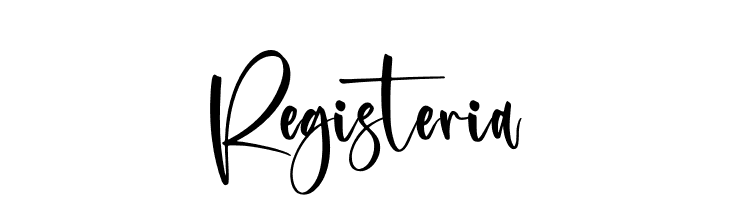
An elegant, cursive script font with flowing curves and delicate flourishes.
An elegant, high-contrast cursive font with dynamic slant and intricate swashes.
A graceful, handwritten font with a flowing, cursive style.
A dynamic and expressive handwritten font with fluid, flowing letterforms.